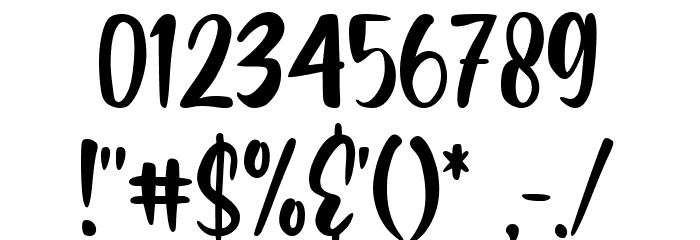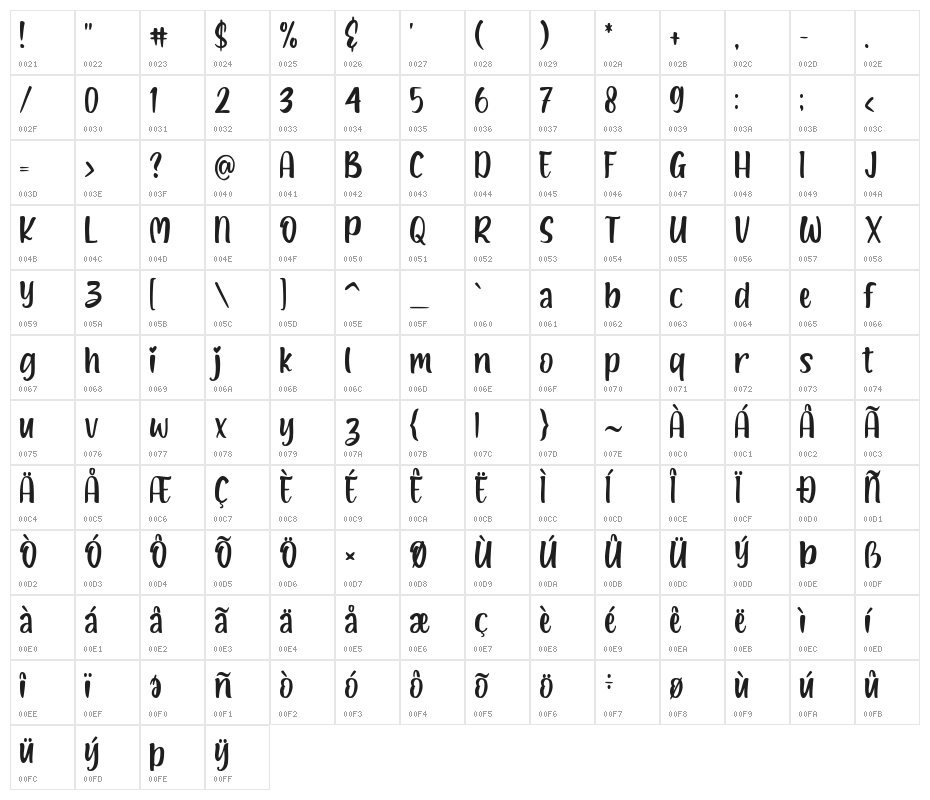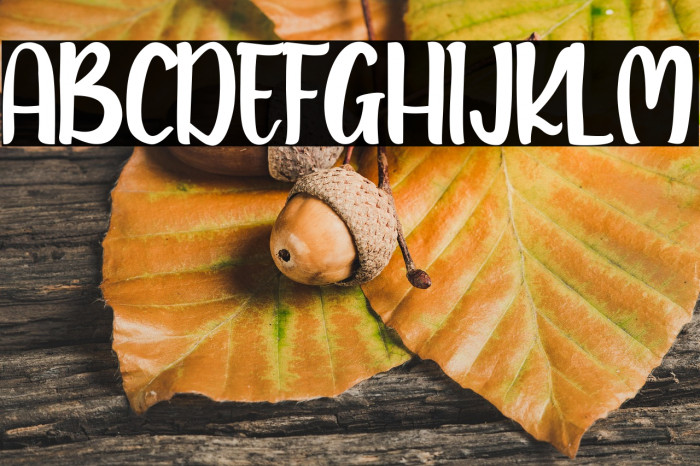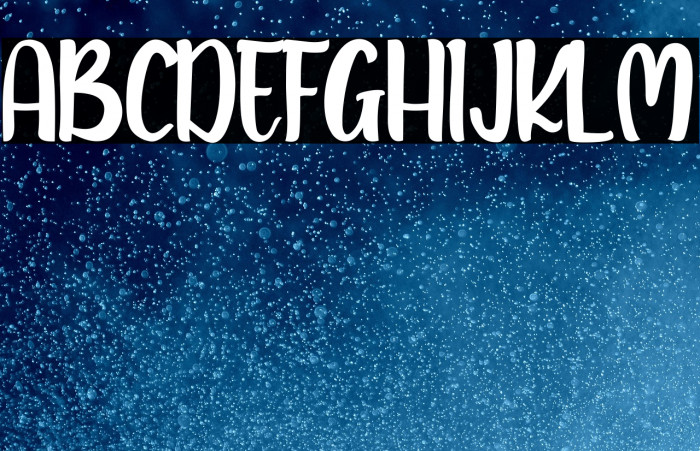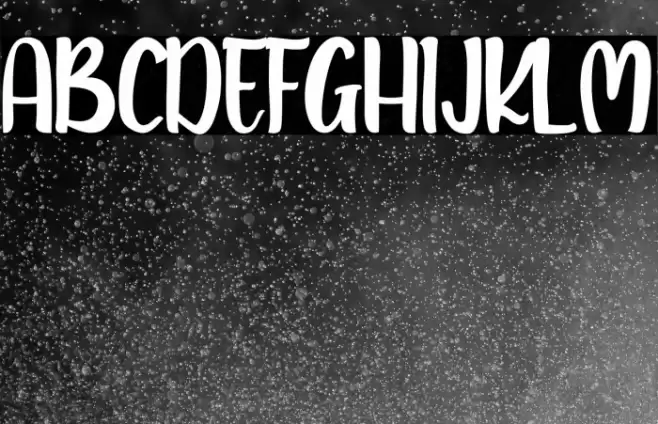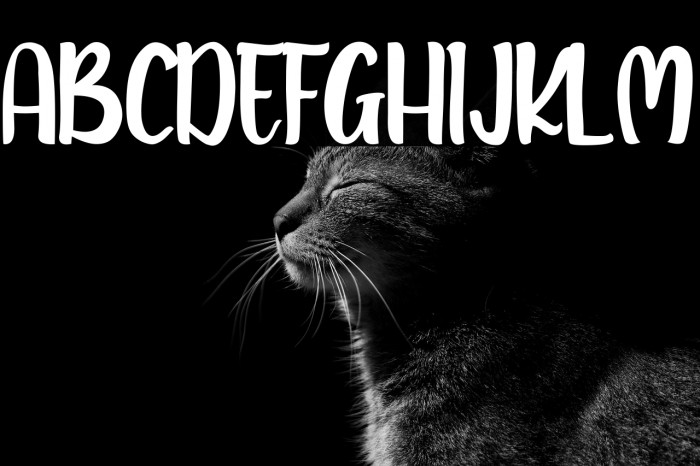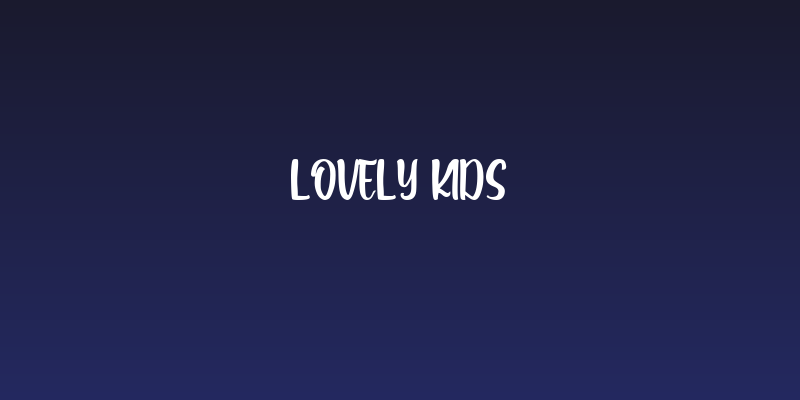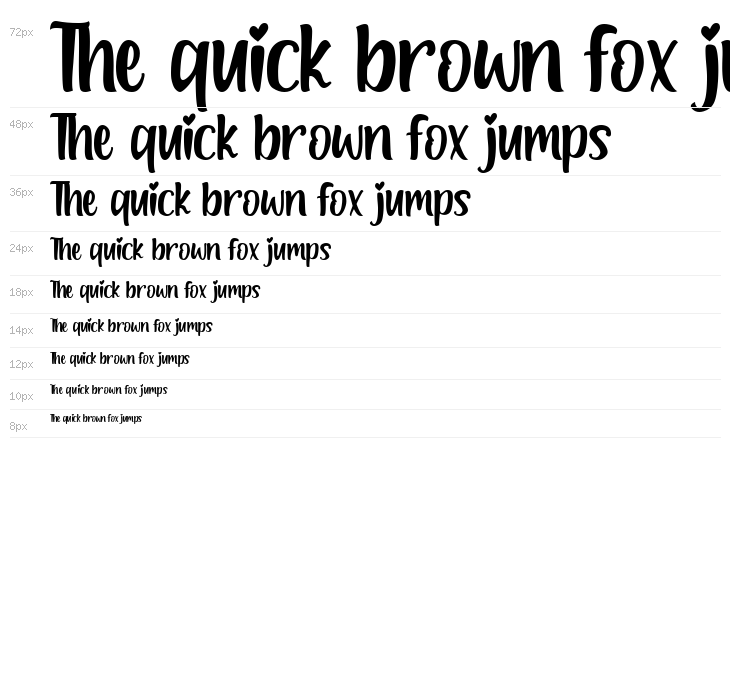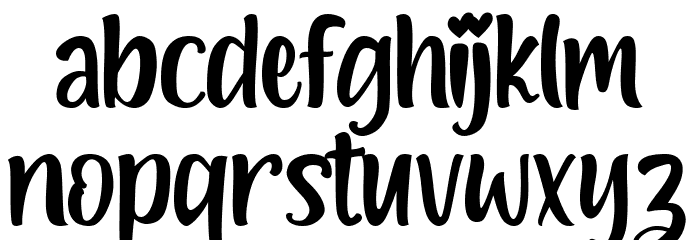
Lovely Kids Font
Lovely Kids Description
This playful and whimsical font features bold, rounded characters with a hand-drawn appearance. The letters are slightly irregular, adding a charming and friendly feel. The uppercase and lowercase letters maintain a consistent style, with smooth curves and a casual flow. The numbers and special characters are equally expressive, making this font ideal for projects that require a fun and approachable aesthetic. Its boldness ensures readability while the unique design elements add personality.
| Proposed Projects | Ideal for children's books, playful branding, greeting cards, and educational materials. |